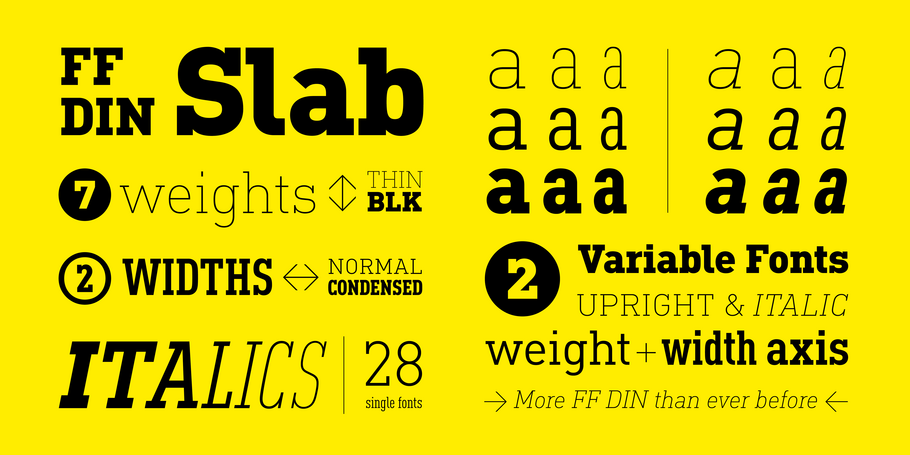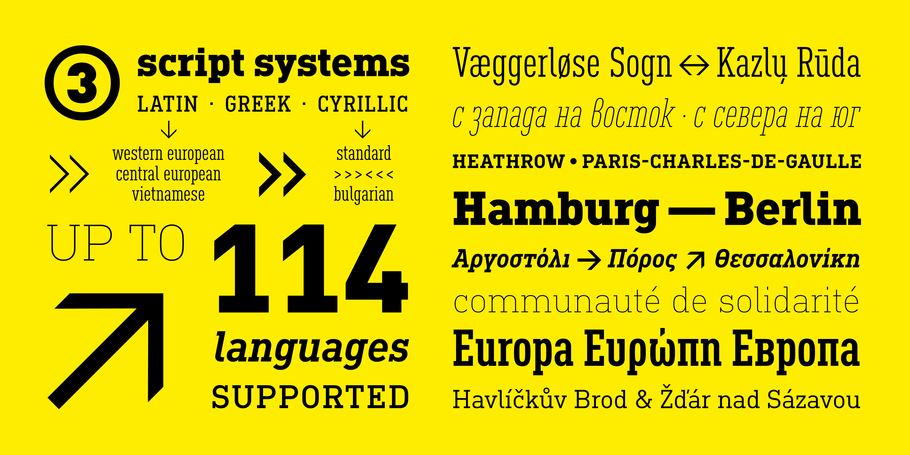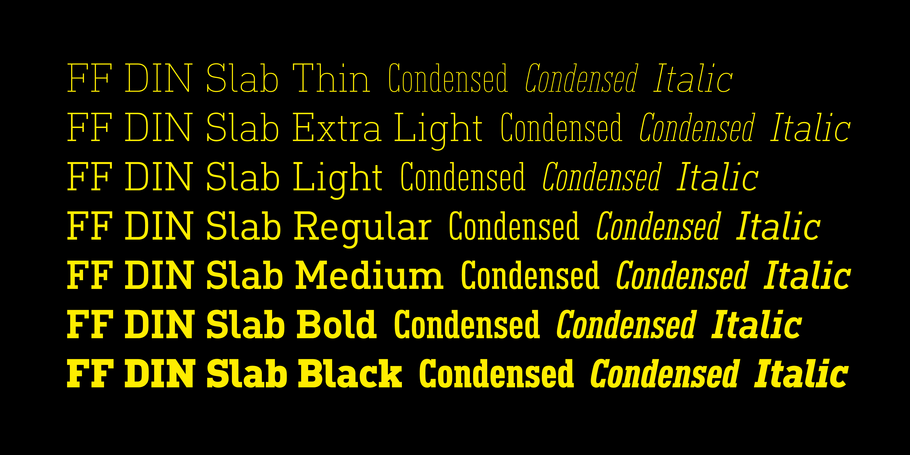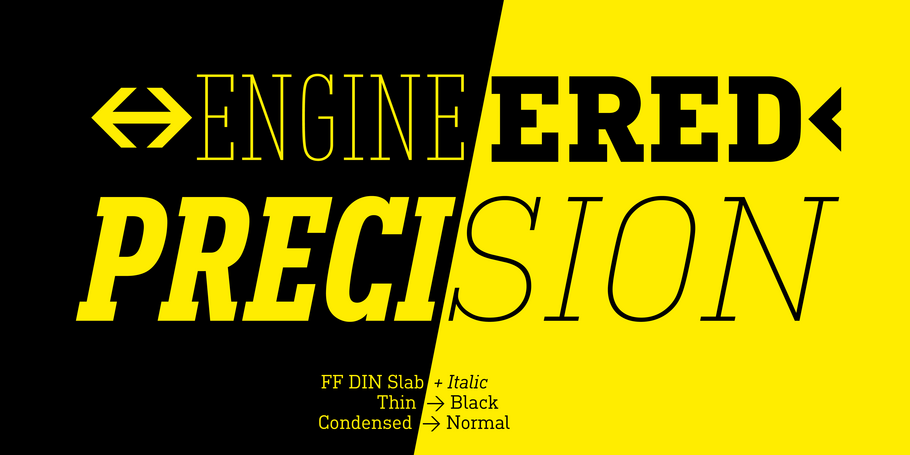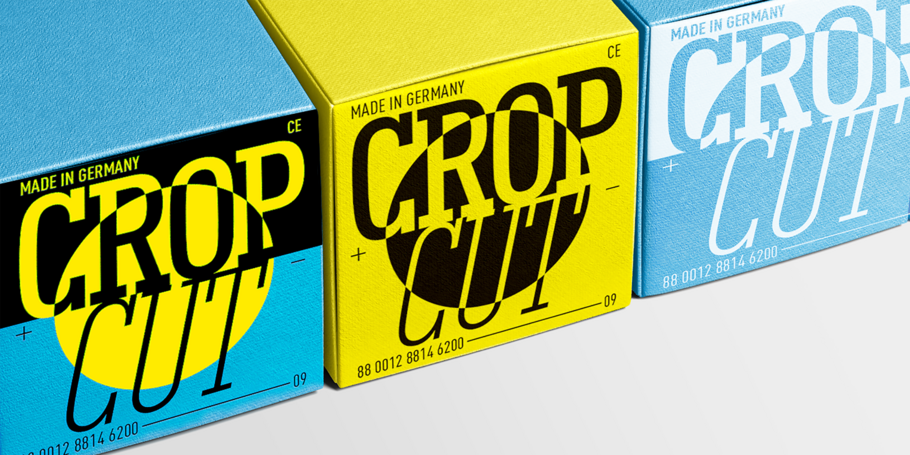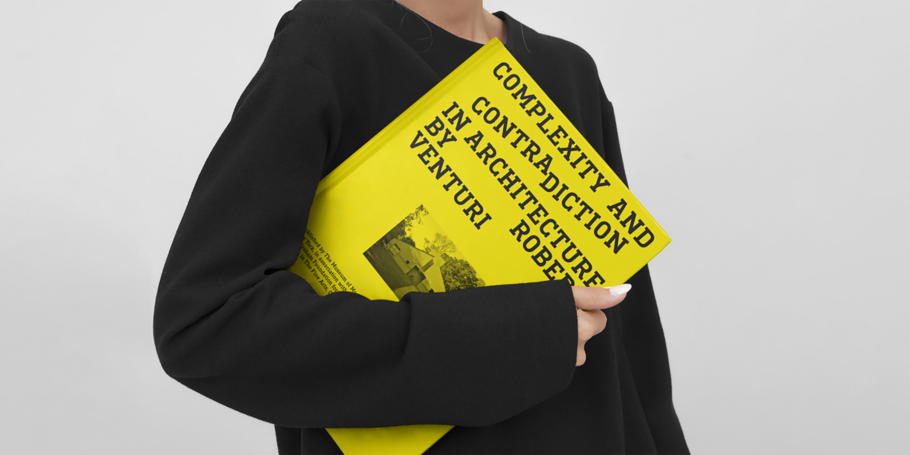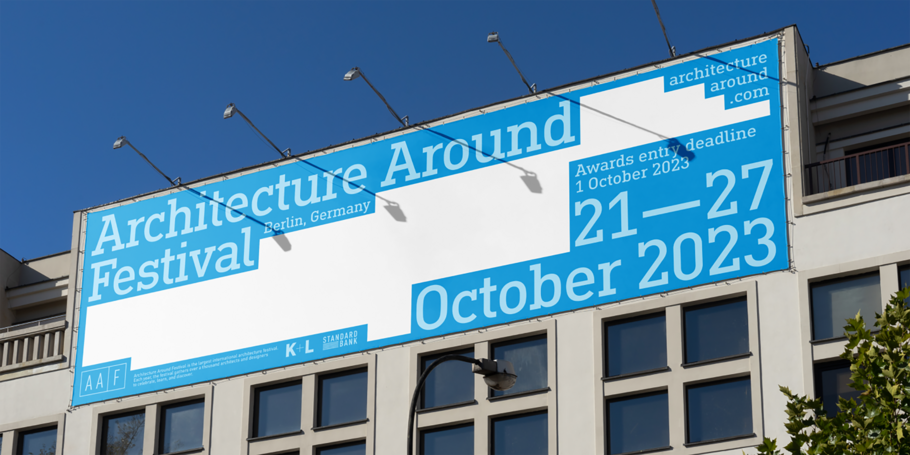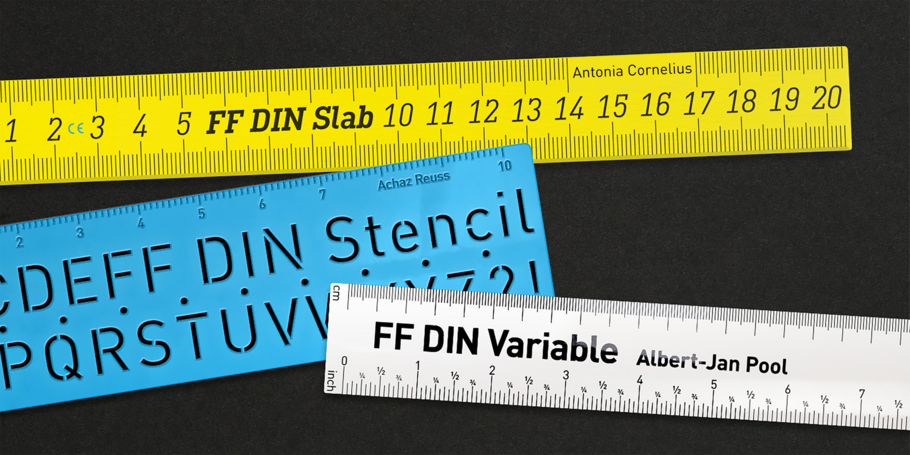
FF DIN Slab
More FF DIN than ever before.
FF DIN Slab distinctively carries on its parent’s DNA, it expands the DIN family worthily — independent but integrated — and opens totally new possibilities of uses with the whole DIN family. The upmost care has been taken with FF DIN Slab’s serifs, they are assertive, sturdy and balanced, the result of this attention to detail is a typeface that harmonizes beautifully with other FF DIN styles.
FF DIN: the famous, faithful and first revival of DIN 1451. FF DIN originates in the lettering models from the German standard DIN 1451, and is considered the perfect standard typeface due to methodical and engineered design.
FF DIN Slab is a robust compliment to the FF DIN family. Designed by Antonia Cornelius and Albert-Jan Pool, it offer designers tools to create greater rhythm and design depth. FF DIN Slab’s proportions have been meticulously aligned with its Sans origins, offering the perfect balance between positive and negative space. The serifs are assertive, sturdy and balanced, they are engineered to emphasis a strong horizontal flow through text, a grounded utility and assurance in headlines. The result of this attention to detail is a typeface that harmonizes beautifully with other FF DIN styles.
Pushing font technology to its limits, FF DIN Slab is also available as a Variable font. Allowing creatives to design hyper specific variations which thrive in any design space, and even seamlessly animate movement from one state to the next.
FF DIN Slab distinctively carries on its parent’s DNA, speaks the same native language — but with a strong peculiar dialect. It expands the DIN family worthily — independent but integrated — and opens totally new possibilities of uses with the whole DIN family.
Antonia Cornelius is a German type and communication designer, lecturer, author and researcher with a special interest in legibility and readability. She studied communication design with focus on type design with Jovica Veljović at University of Applied Science Hamburg. Right away after her master’s degree Antonia joined Dutch Design for extending the FF DIN family with FF DIN Slab. Next to that she painstakingly engineered the outlines of FF DIN and FF DIN Stencil to turn them into Variable Fonts.